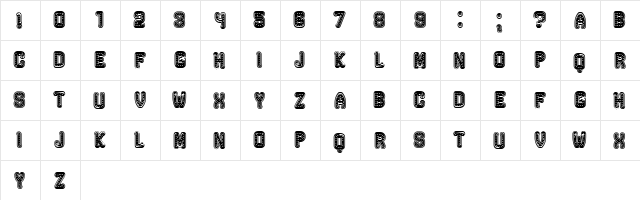
Rockefeller Fancy Regular
Design Context for Rockefeller Fancy Typeface
Rockefeller Fancy is a composed and adaptable typeface that performs quietly and consistently across a wide range of design contexts.